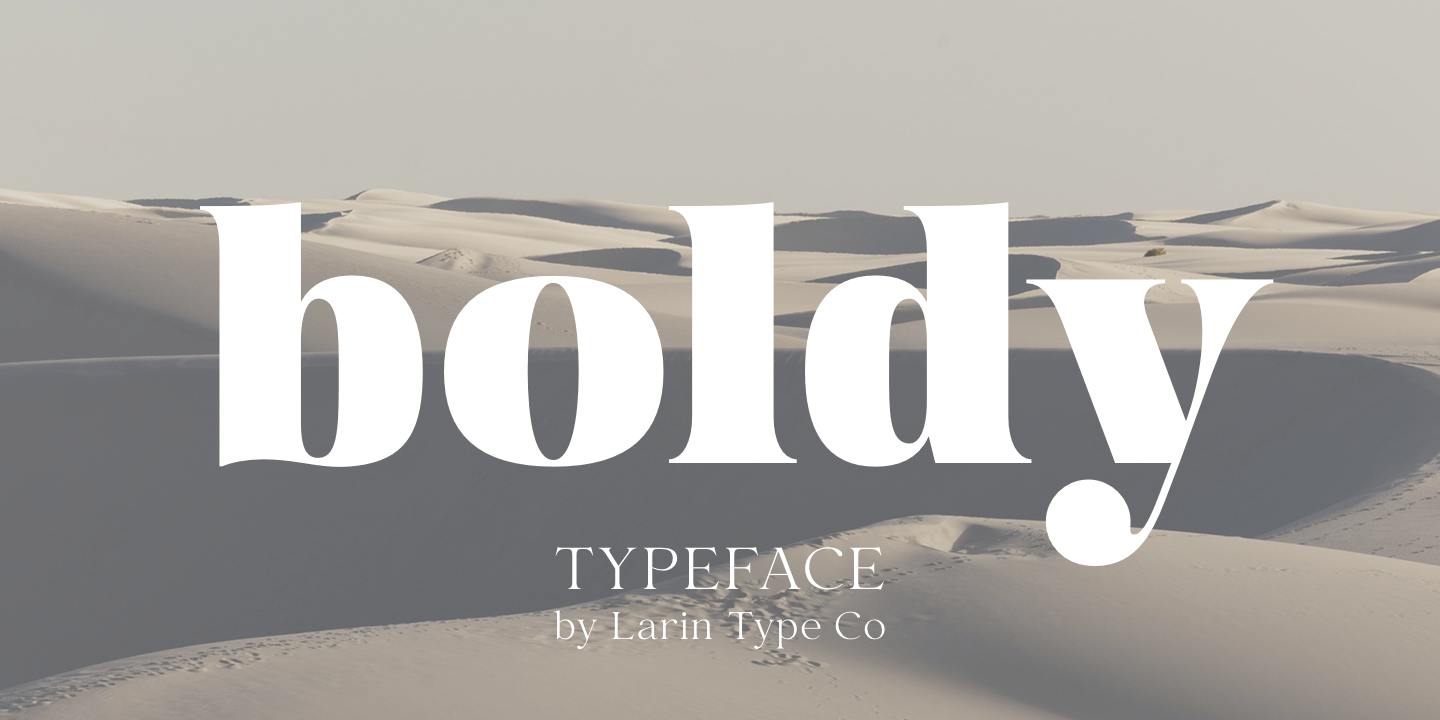
If you're looking for a strong, modern display typeface with a bold, confident presence, Boldy Font Free Download is the perfect choice for your creative projects. This powerful font features thick, clean letterforms designed to grab attention, making it ideal for headlines, logos, posters, branding, product packaging, and promotional materials that demand impact and clarity. Its straightforward style ensures your message stands out loud and clear.
Boldy Font offers excellent readability across both print and digital formats, making it versatile for a wide range of applications. It includes multilingual support and a variety of glyphs, providing flexibility for designers to create bold, professional typography. Whether you're crafting a standout logo or designing eye-catching marketing graphics, this font delivers strength, simplicity, and style.